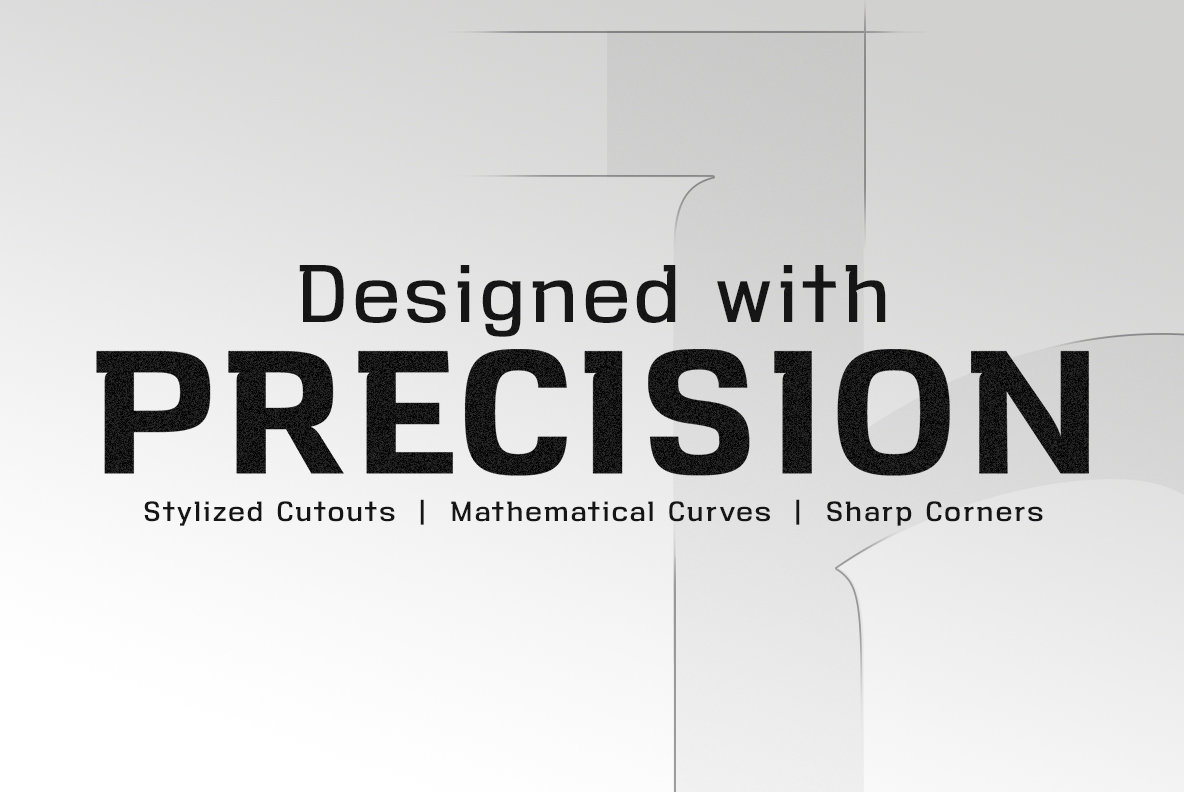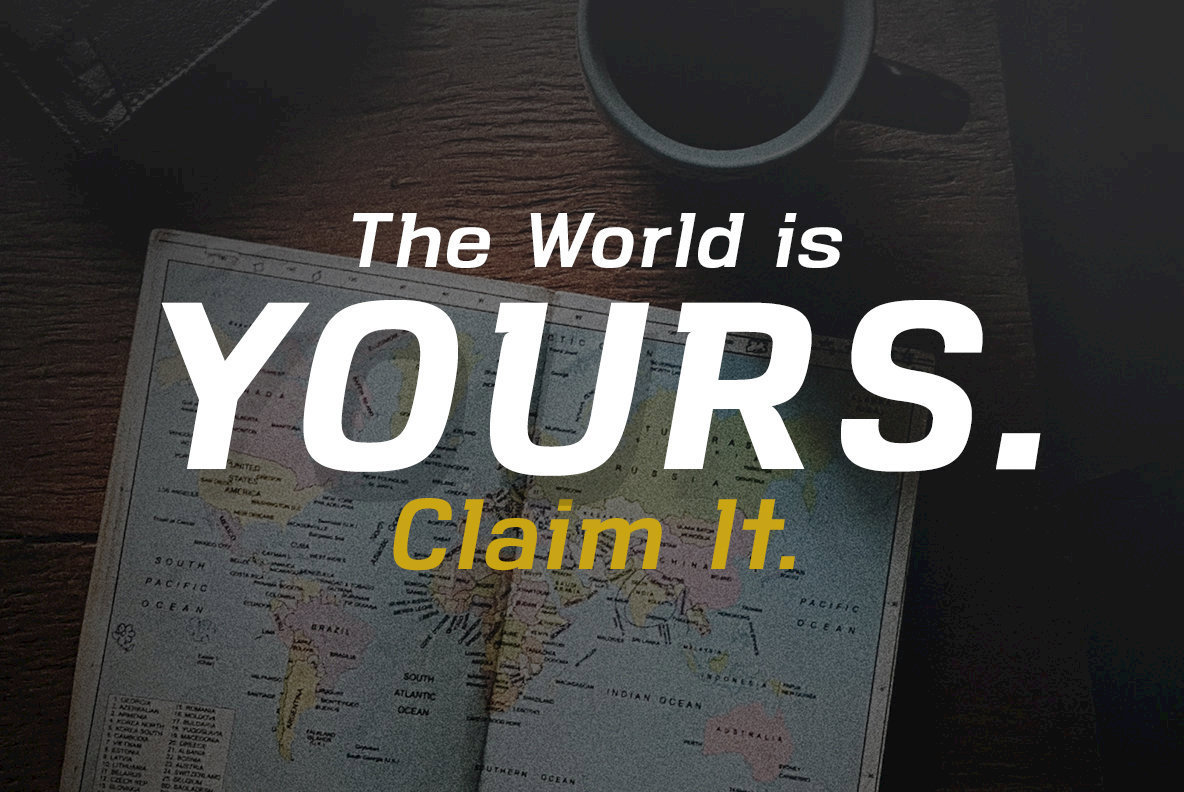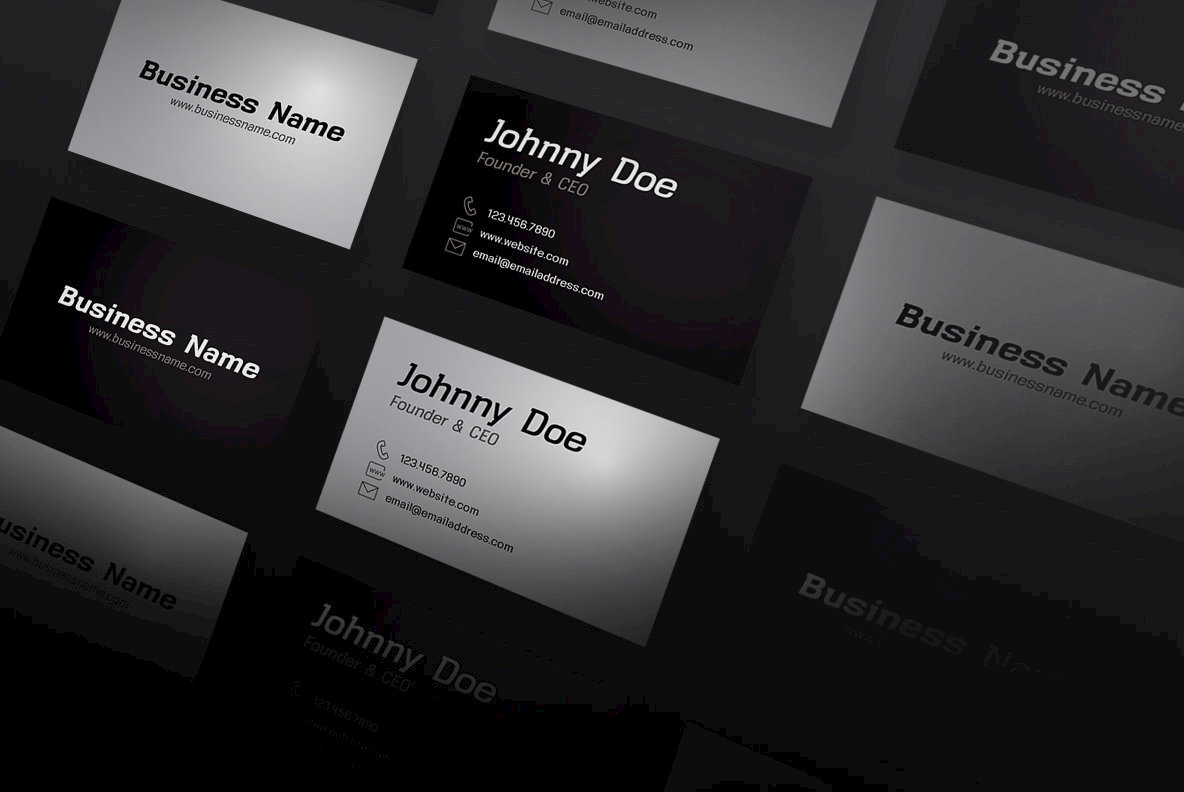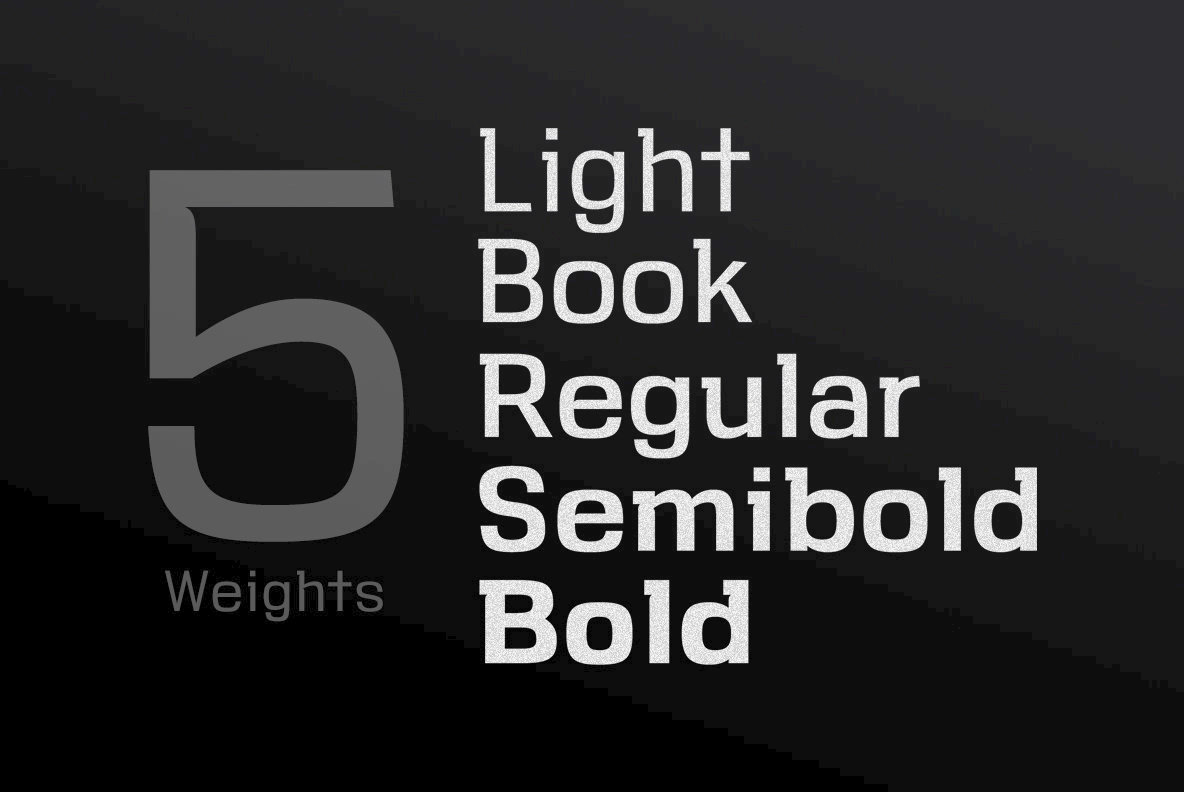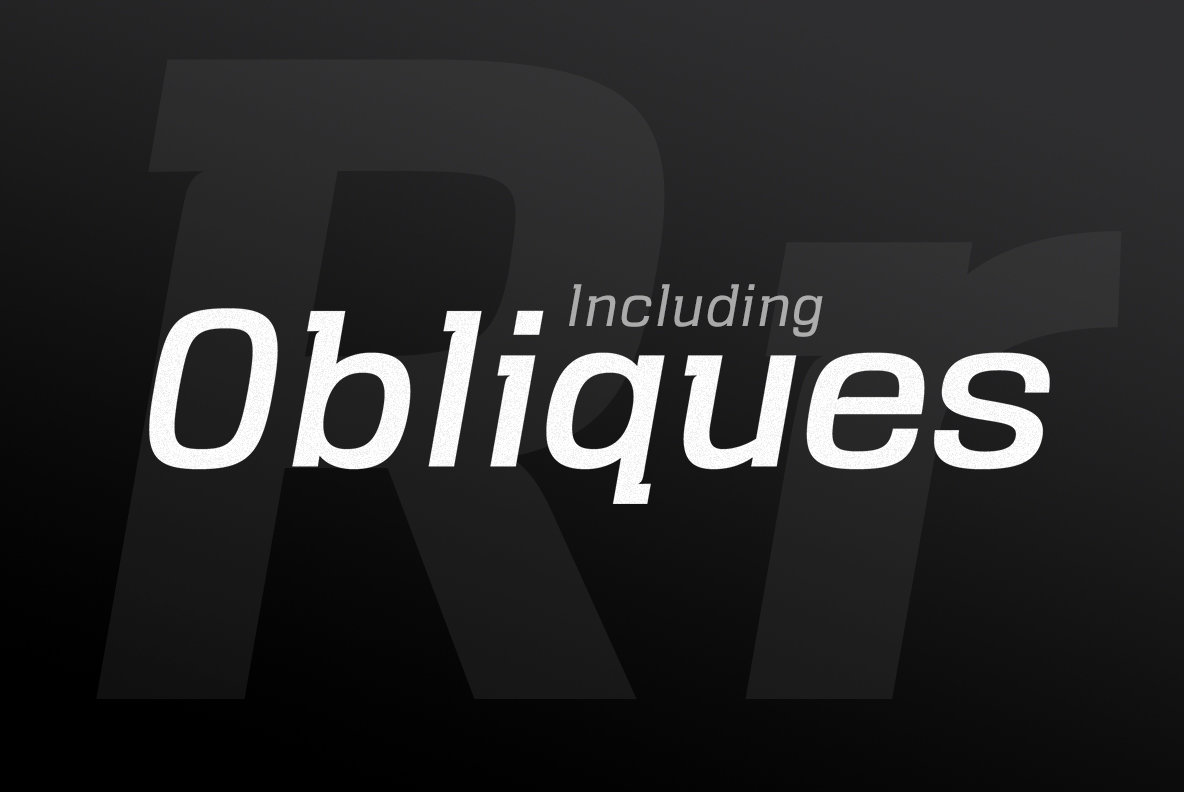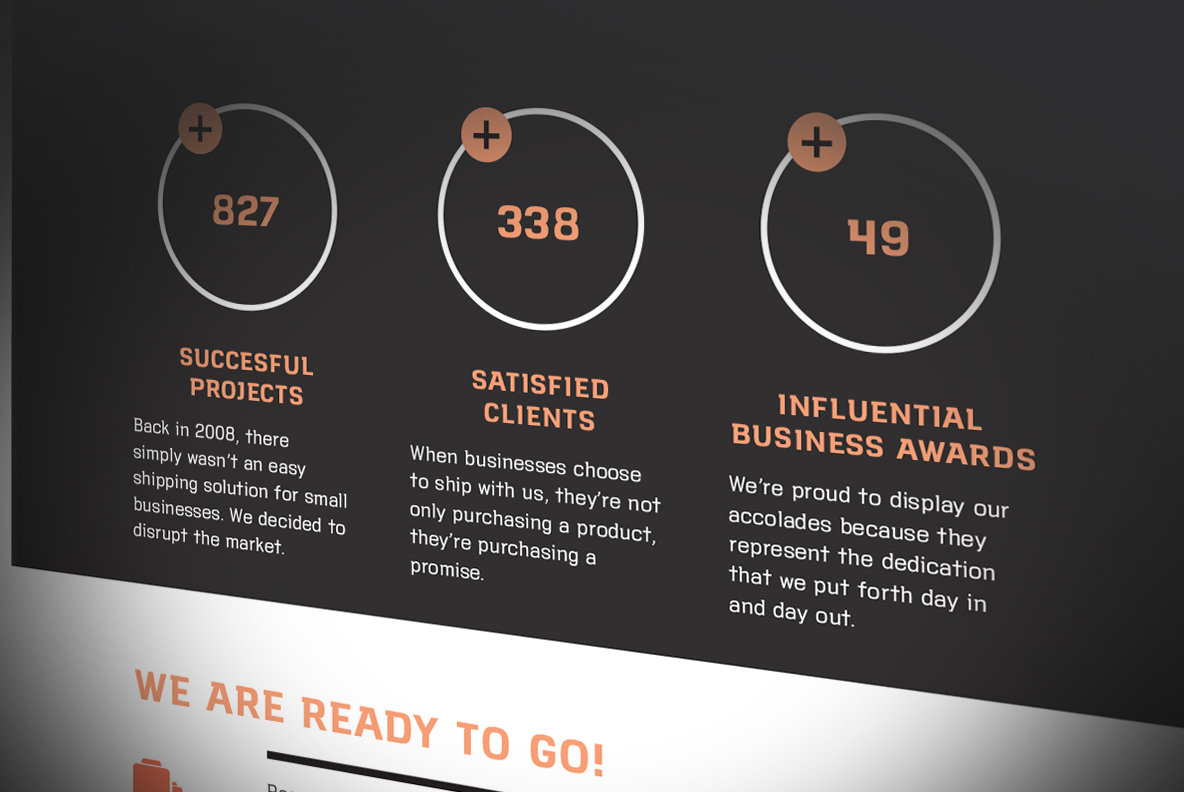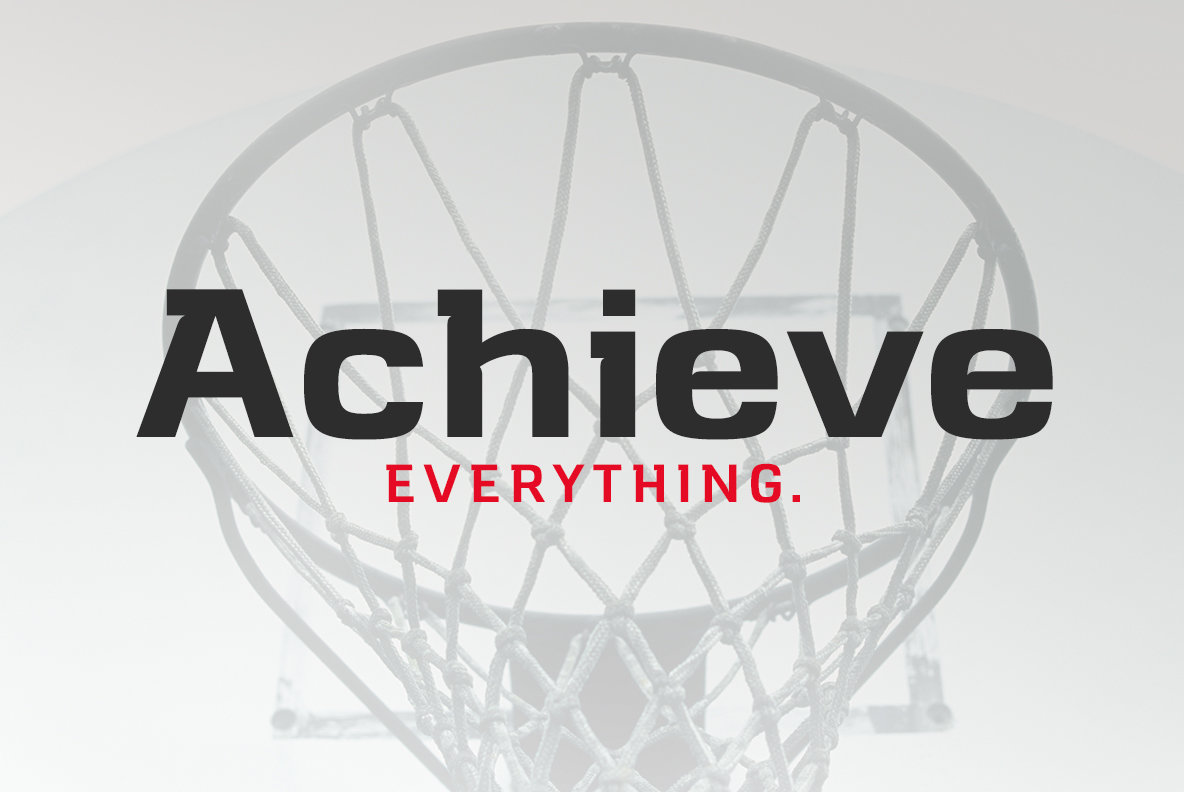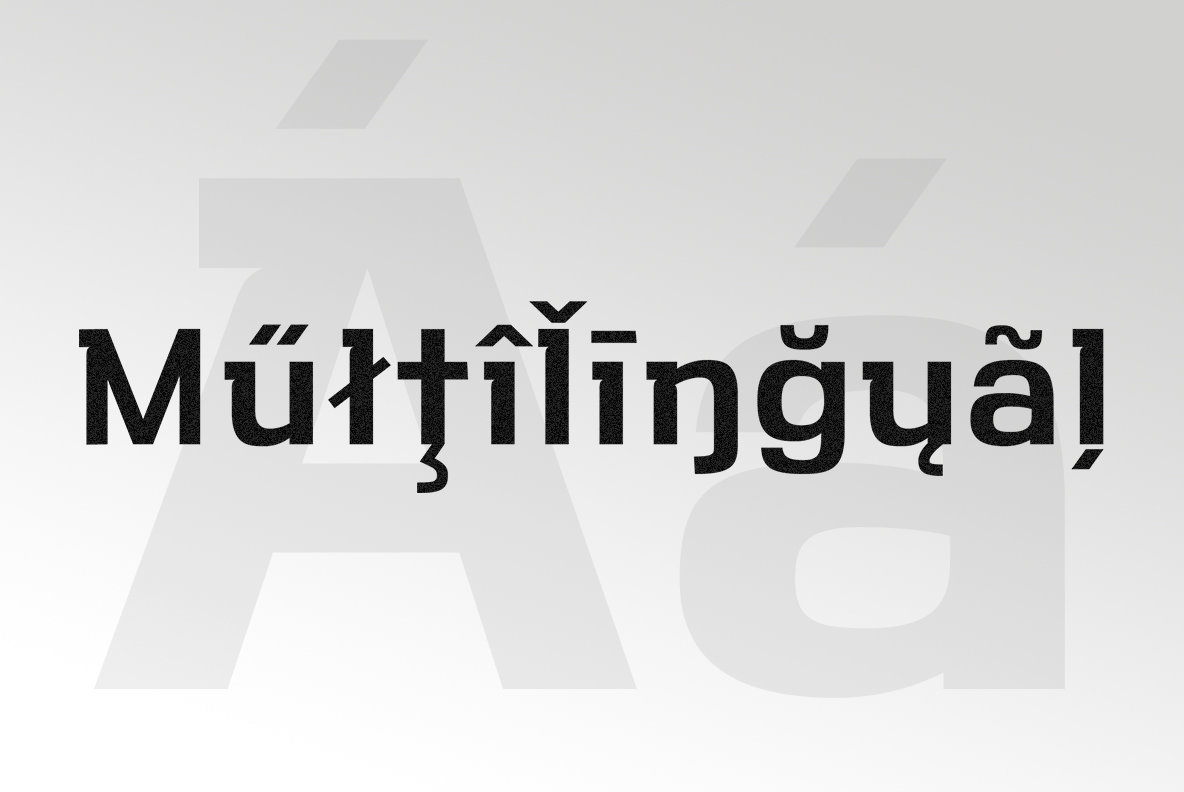
VersaBlock Pro Font
Powerful, sharp, and geometric, VersaBlock Pro is a versatile font family with a striking visual presence. Mathematical curves and stylized cutouts create a modern, high-precision, machined cut look that gives the typeface an energy and spunk. A subtle wedge found at the ascender of most vertical stems creates a design motif that is carried out throughout the character set, creating a visual rhythm as letters are arranged into words.
VersaBlock is ideal for logos, product sheets, advertising, and websites, and reads well for both at display and small paragraph sizes!